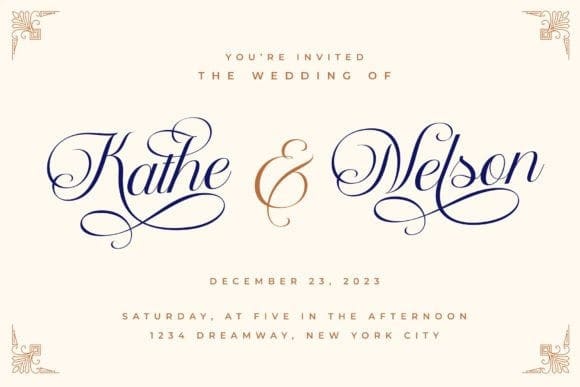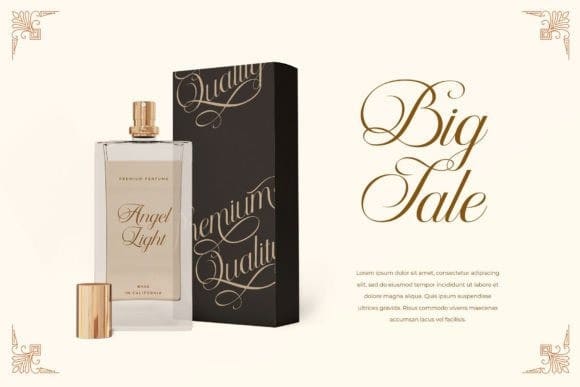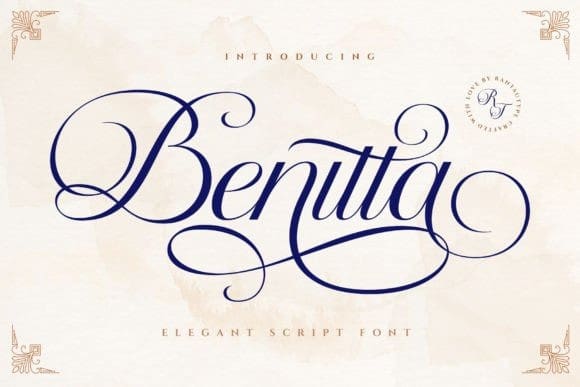
Benitta Font
Benitta Font is a beautiful choice for any creative endeavor, chic, lifestyle design such as logos, title, watermark on photography, cover, branding, display and magazine, wedding event, quotes, album cover, business card, corporate, business project and many other design projects.